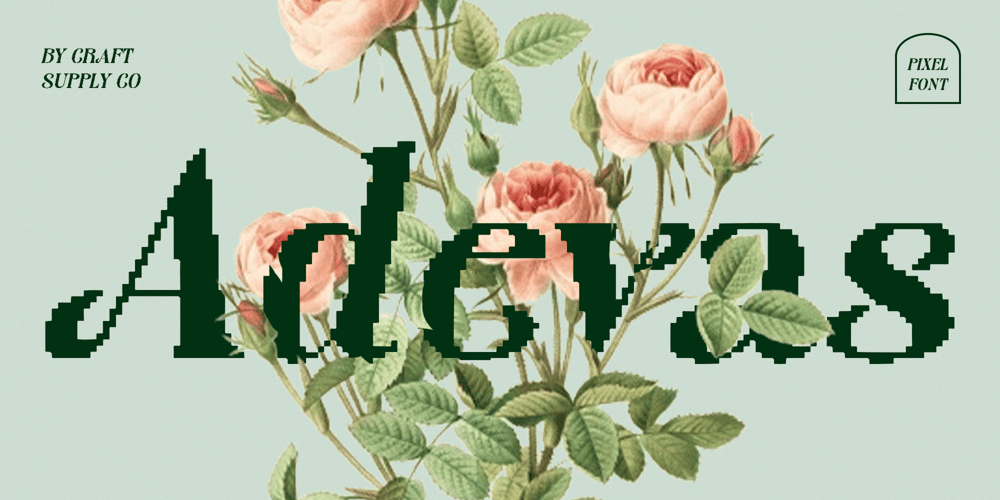
Adevas Pixel Font Family was designed by Trio Nazzar Saputra, Wahyu Hadi Yuana and published by Craft Supply Co. Adevas Pixel contains 2 styles and family package options. Adevas Pixel: Serif Font with Art Nouveau Shapes and Pixel EffectsSerif Font with Art Nouveau ShapesAdevas Pixel is a sophisticated serif font that seamlessly blends the beauty and elegance of Art Nouveau style with a modern twist of pixel effects. This unique font showcases smooth lines, organic decorations, and artistic elements characteristic of Art Nouveau, while introducing a contemporary feel through pixelated details.Combining Classic Elegance with Modern InfluencePerfect for designs that seek a harmonious blend of classic elegance and modern technological influences, Adevas Pixel offers a distinctive visual appeal. Its Art Nouveau shapes provide a timeless charm, while the pixel effects add a contemporary edge, making it suitable for a variety of design applications.Versatile and StylishAdevas Pixel is ideal for projects aiming to highlight both artistic sophistication and technological innovation. Whether used in branding, editorial layouts, invitations, or digital interfaces, this font ensures your designs stand out with a unique and captivating aesthetic.Elevate Your DesignsChoose Adevas Pixel to elevate your designs with its blend of Art Nouveau elegance and modern pixel effects. This font guarantees to bring a touch of classic beauty and contemporary style to your creative projects, ensuring they leave a lasting impression.